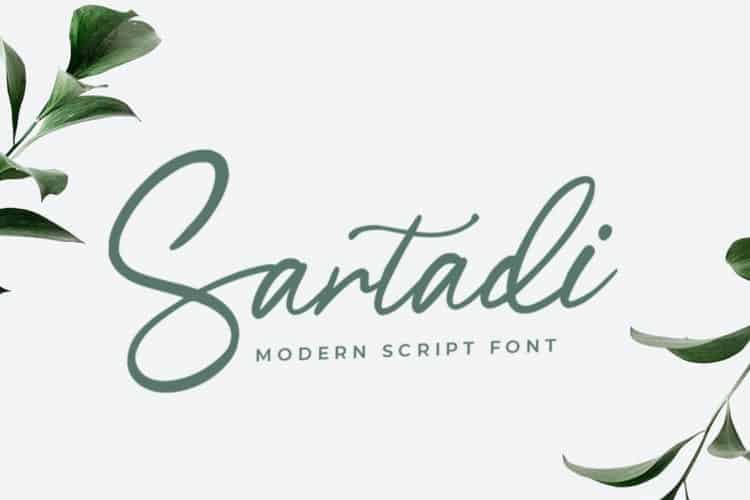
Sartadi – Modern Script Font
Sartadi Font is a unique, cool and modern handwritten font.
It’s hand look style makes it perfect for use in all your design projects be it logos, signatures, labels, packaging design, blog headlines.